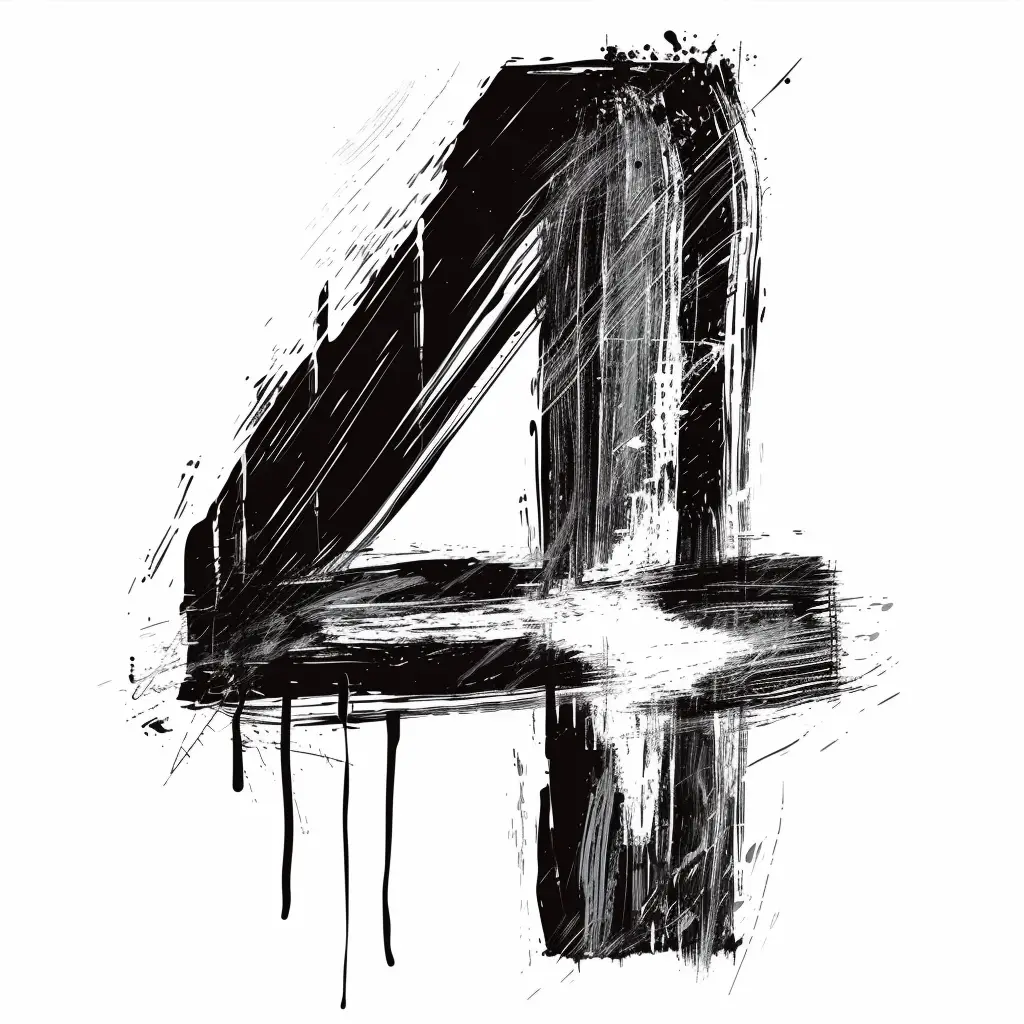
The image features a stylized, hand-painted number "4" rendered in bold black brushstrokes against a white background. The design incorporates rough, textured lines, splatters, and dripping paint, giving it a gritty, artistic, and dynamic appearance. The high-contrast black-and-white color scheme emphasizes the raw, expressive style of the typography.